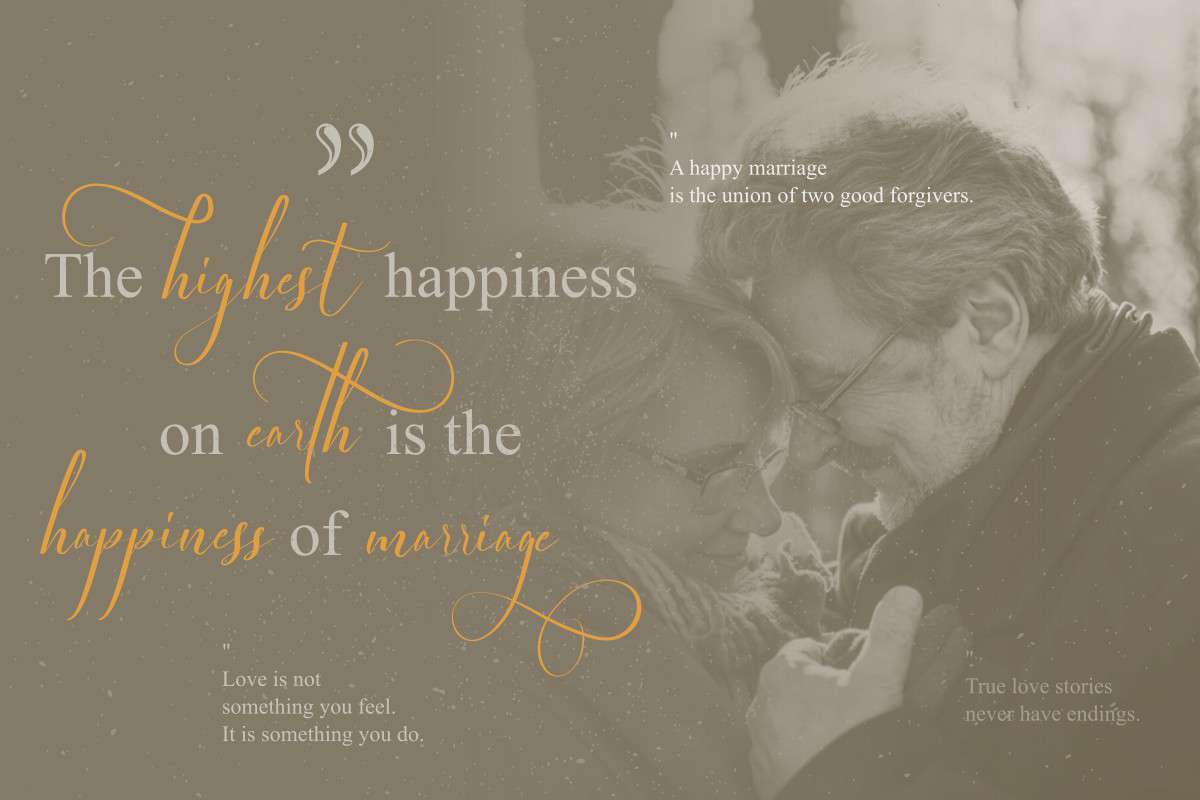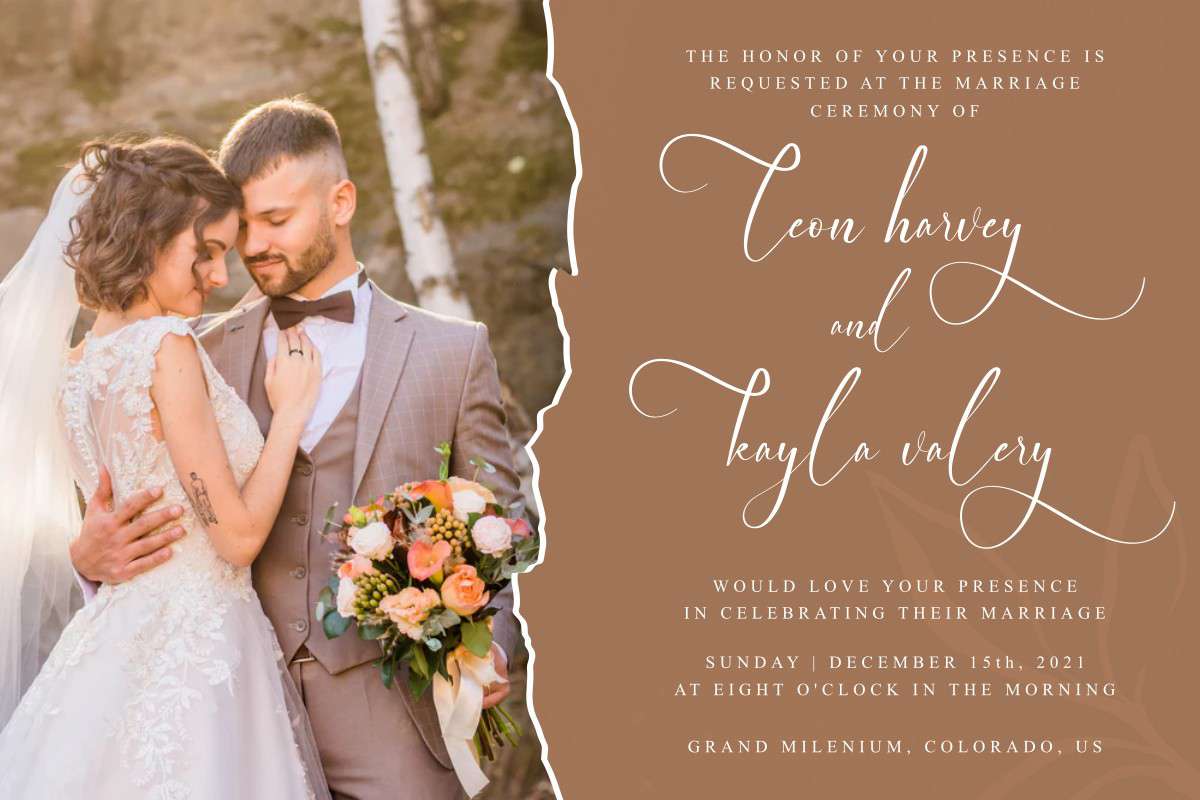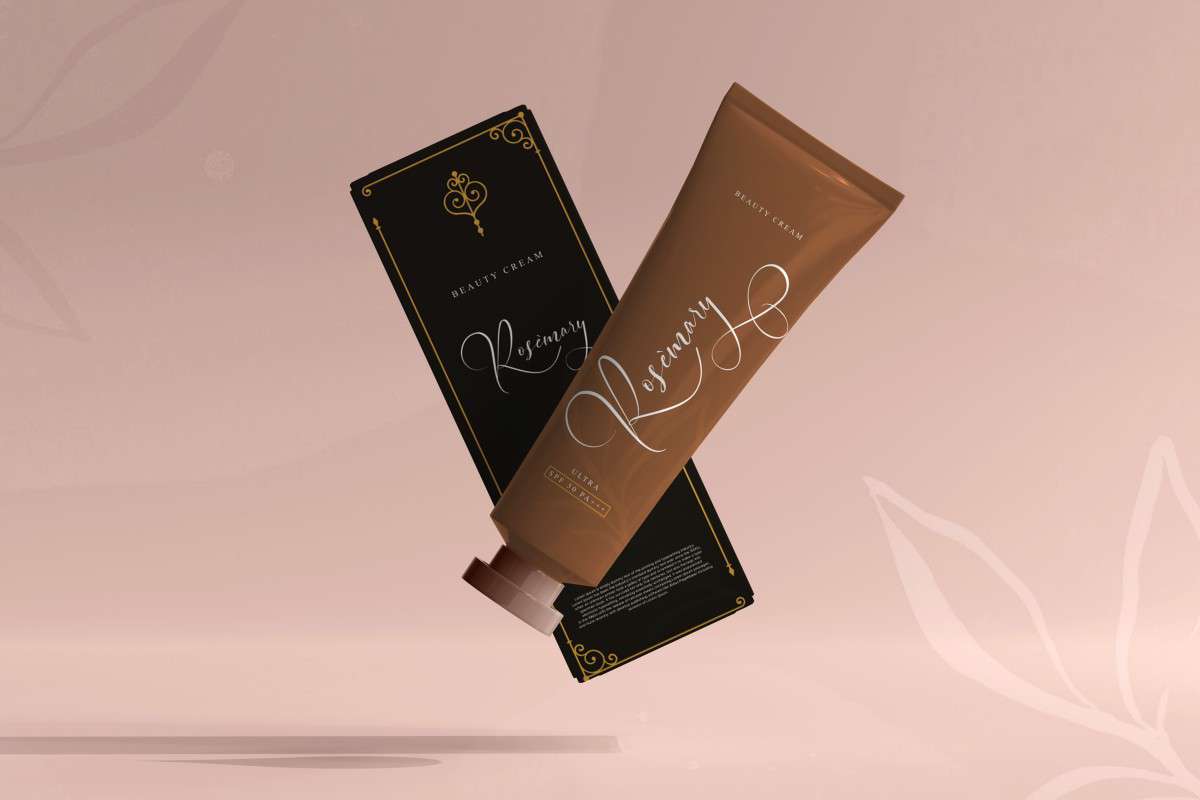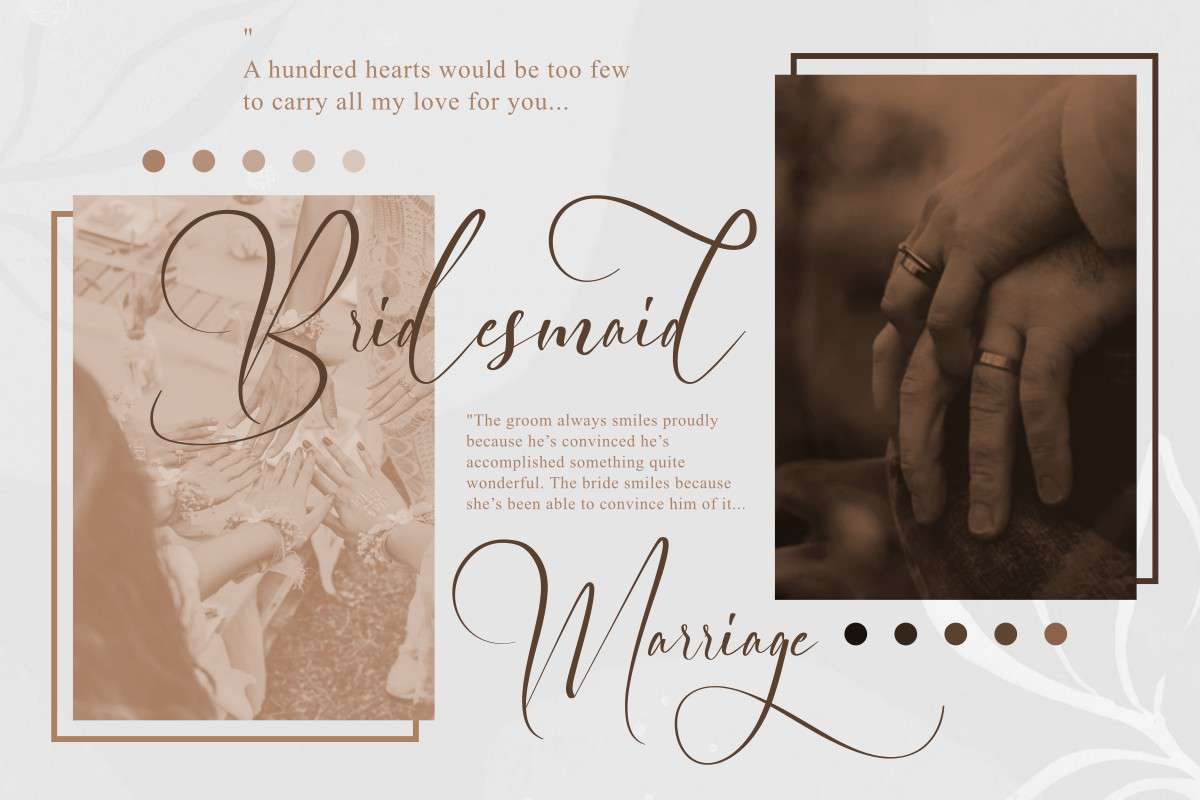
Elegant Wedding Calligraphy Font
This font will be great for any of your special projects including : weddings, promotion, events, branding, advertising, magazine, shopping, signage, invitation, stationery, social media posts, product packaging, product designs, label, photography, watermark or and any projects that need handwriting style. Elegant Wedding Font includes full set of gorgeous uppercase and lowercase letters, numerals, a large range of punctuation and ligatures. We made this font look like stunning handwriting, giving it a realistic handwriting style.